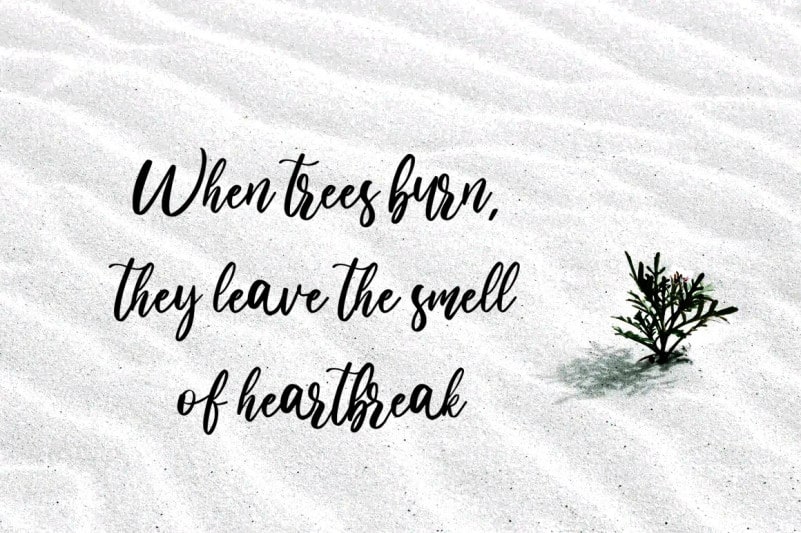
Barcelona Calligraphy Font
Barcelona Calligraphy Font is a beautiful and modern calligraphy typeface. It features a varying baseline, smooth lines, gorgeous glyphs and stunning alternates. Barcelona will turn any creative idea into a true piece of art!